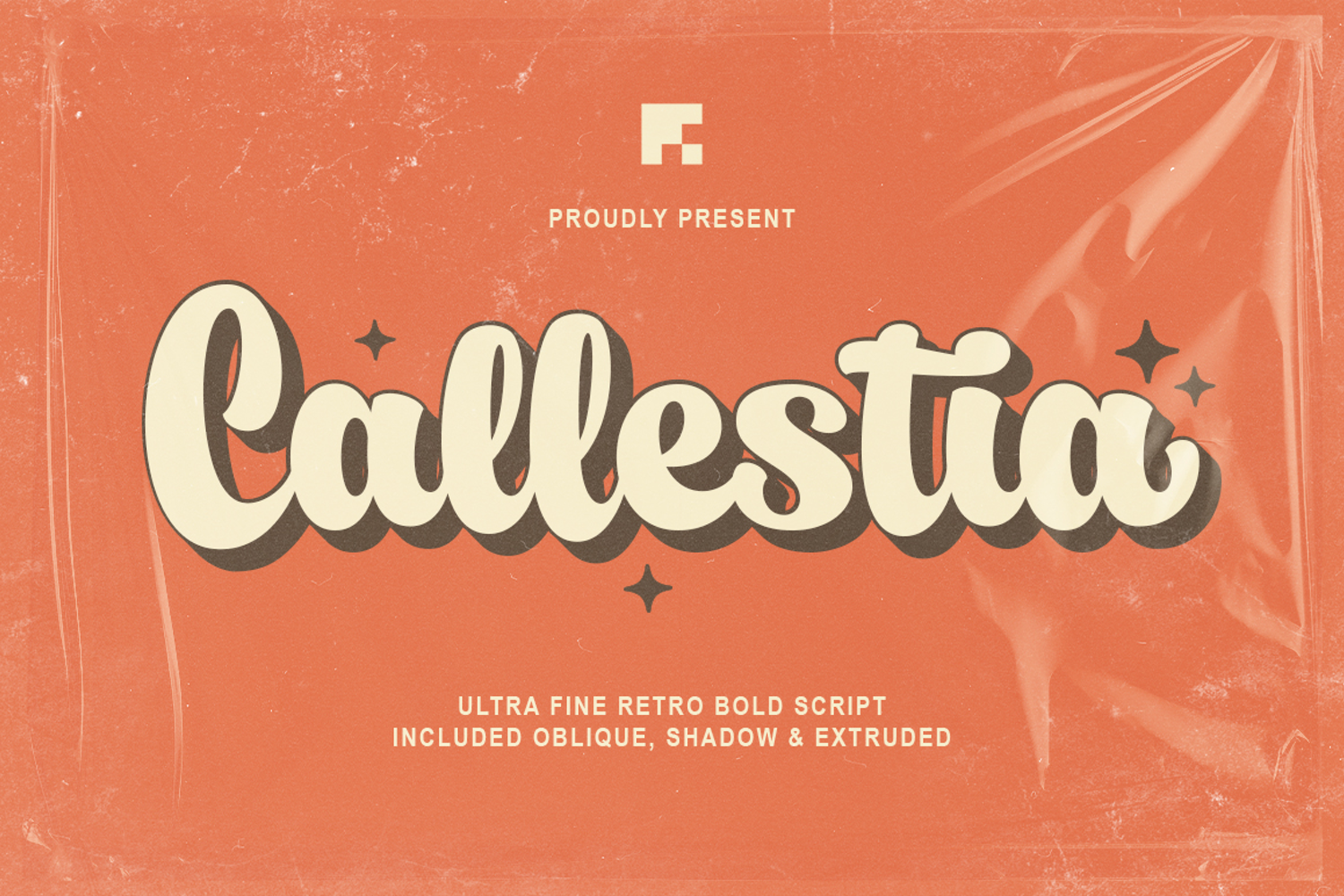
Callestia
Introducing Callestia â€“ a bold retro script that instantly takes you back to the vibrant 90s era! With its smooth curves and strong personality, Callestia is more than just a typeface—it’s a statement.
This font comes with oblique and extrude versions, giving you the flexibility to create eye-catching retro effects with ease. Whether you want a bold headline, a nostalgic logo, or striking typography, Callestia is designed to make your projects stand out effortlessly.